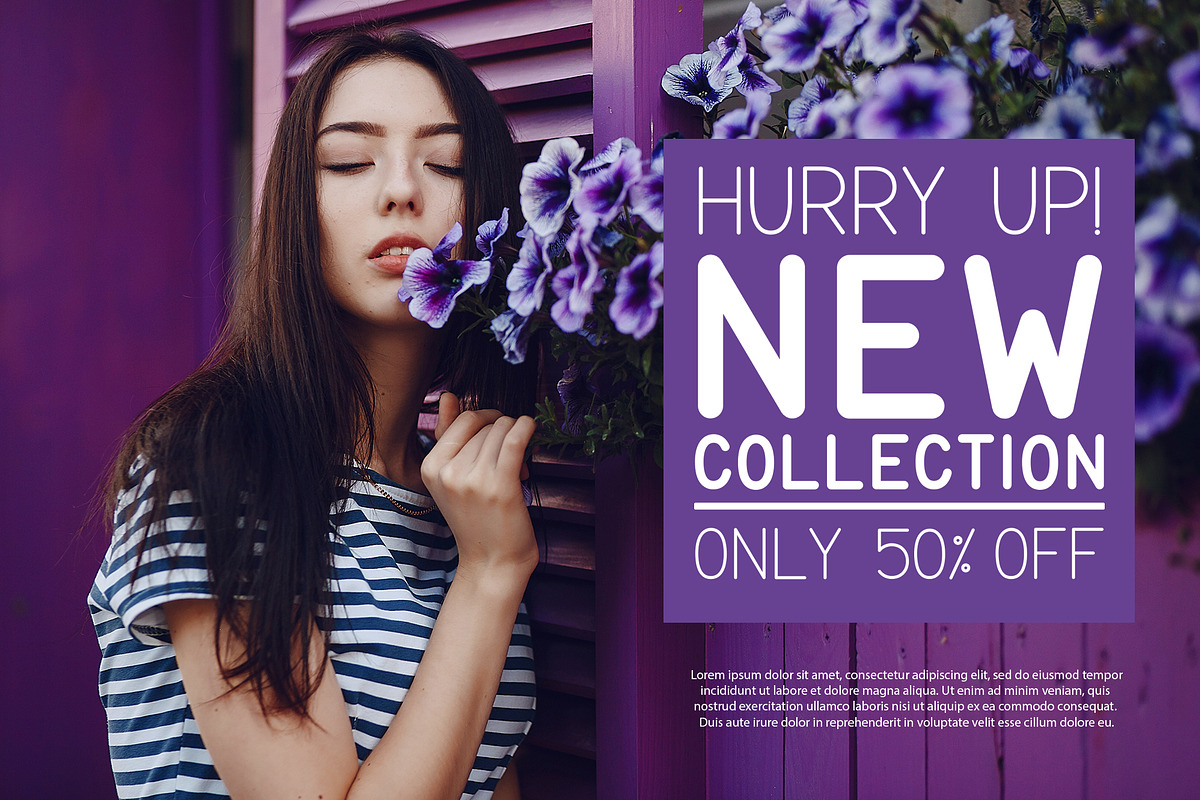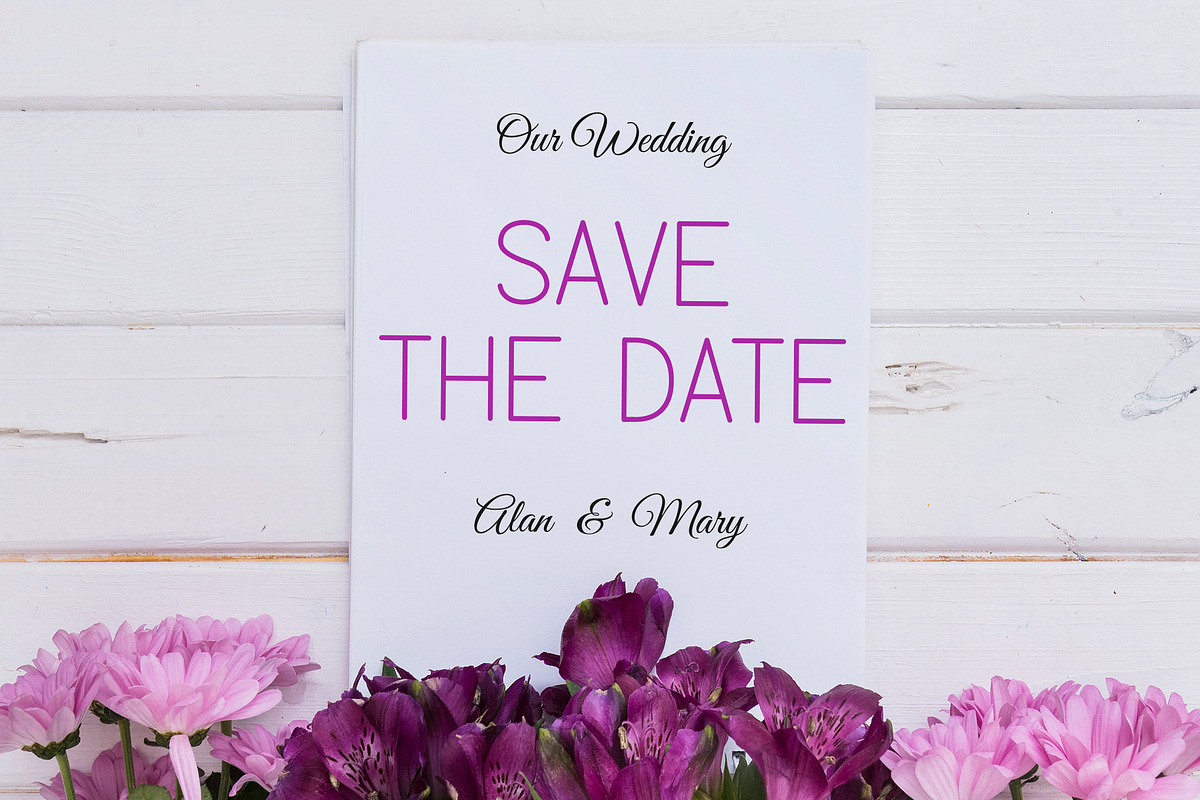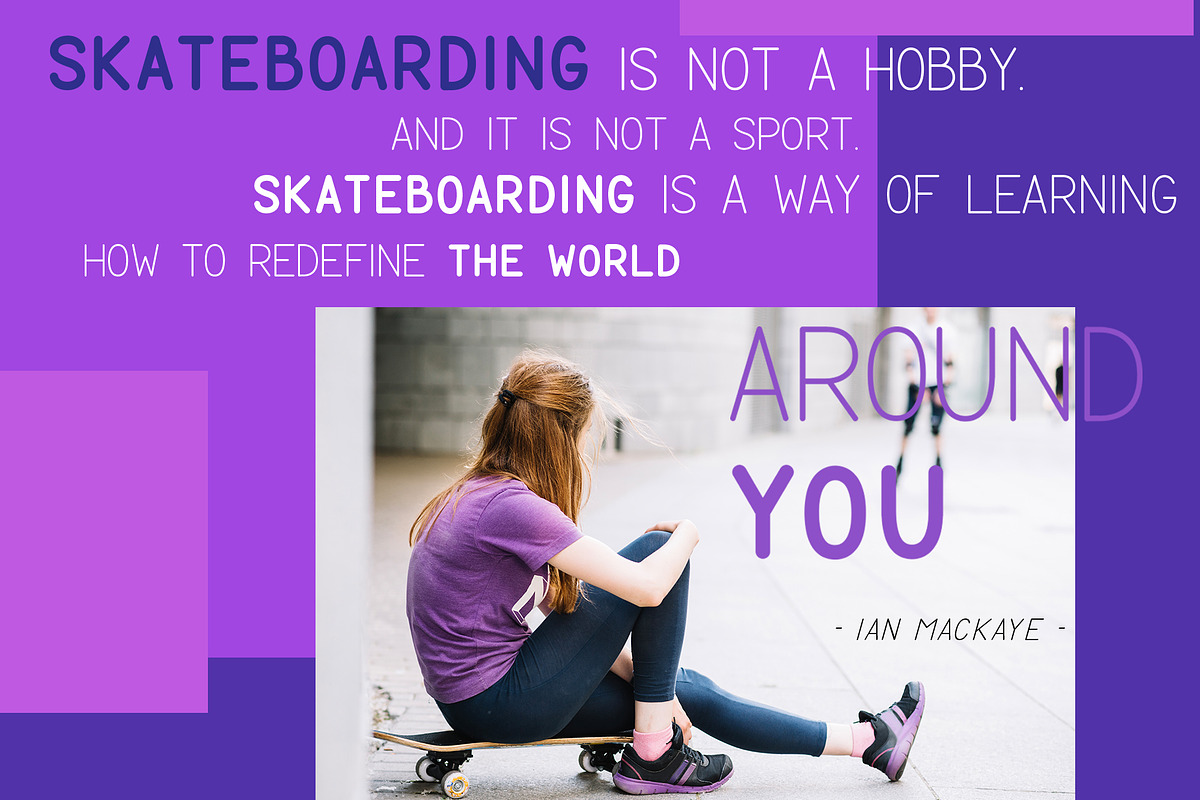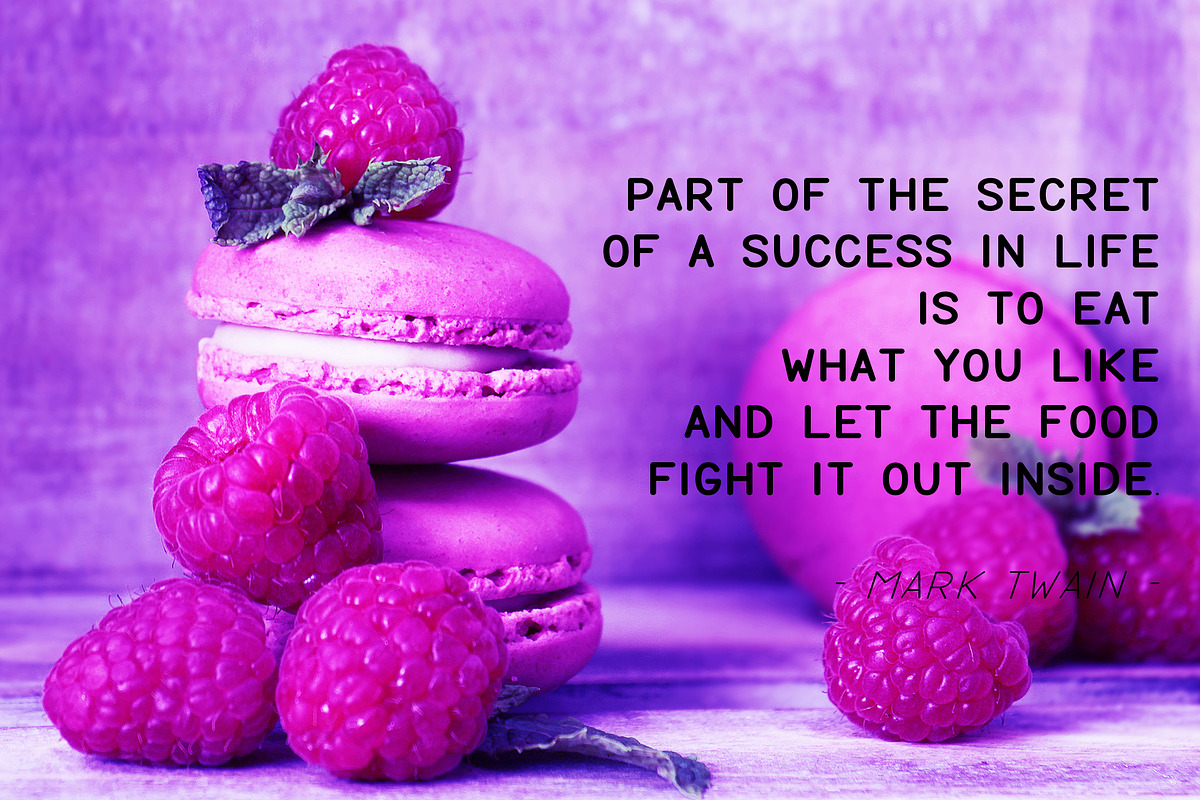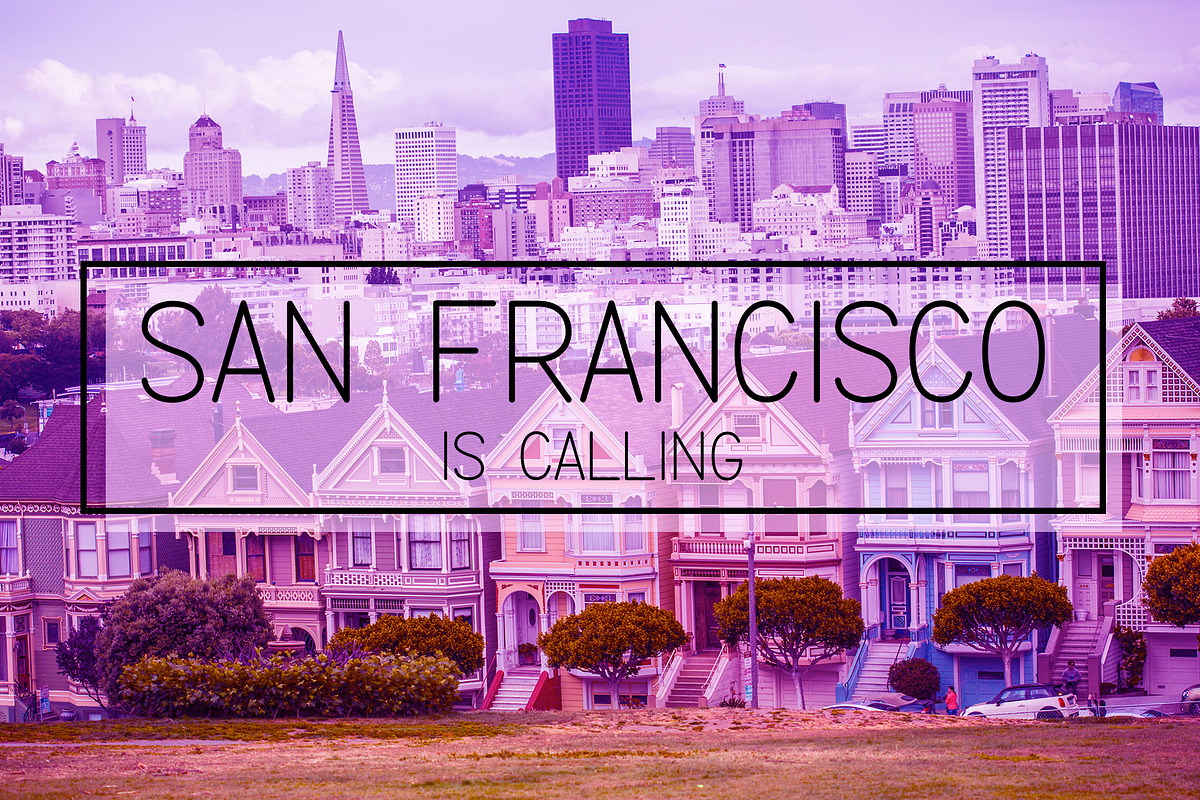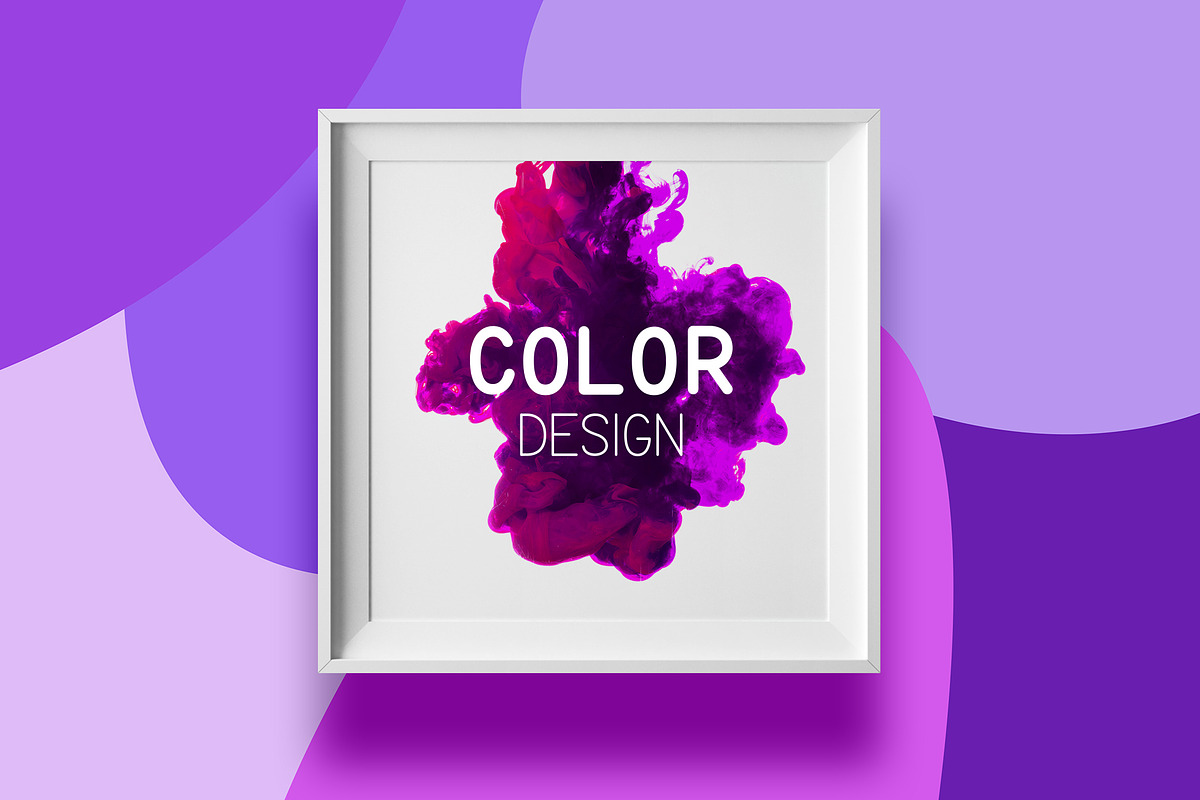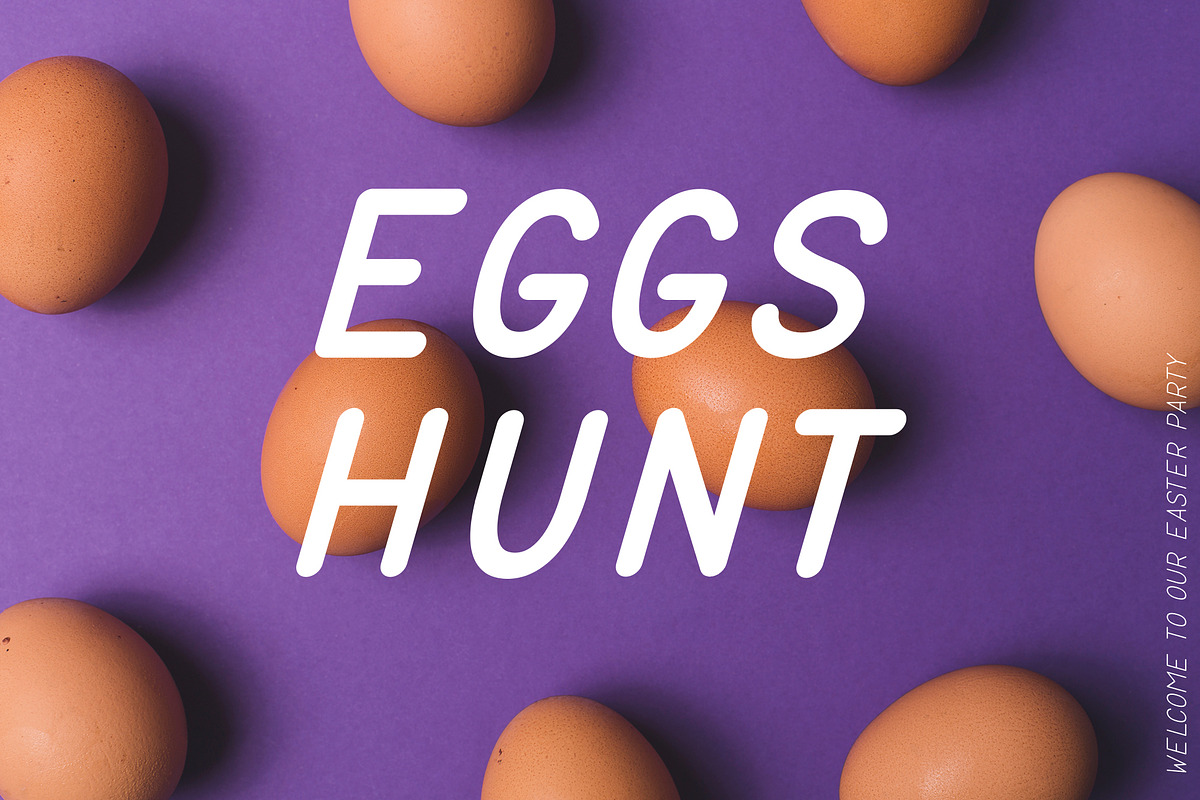
ULTRA VIOLET sans serif font family.
Hello! Today i,m glad to present you soft and modern ULTRA VIOLET sans serif font family inspired by catching color in trend design. The world is really bright and different. So create something beautiful, modern and awesome with ULTRA VIOLET font!
ULTRA VIOLET works great in posters, logos, headlines, packaging, advertising, branding and so much more. This font will easily help you to create the best urban or rustic, elegant or dynamic designs.
There are two weights and italics:
ULTRA VIOLET Bold - so dynamic and powerful
ULTRA VIOLET Regular - so elegant and elite
ULTRA VIOLET Bold Italic
ULTRA VIOLET Regular Italic ULTRA VIOLET font has uppercase and lowercase characters, numbers and punctuations.